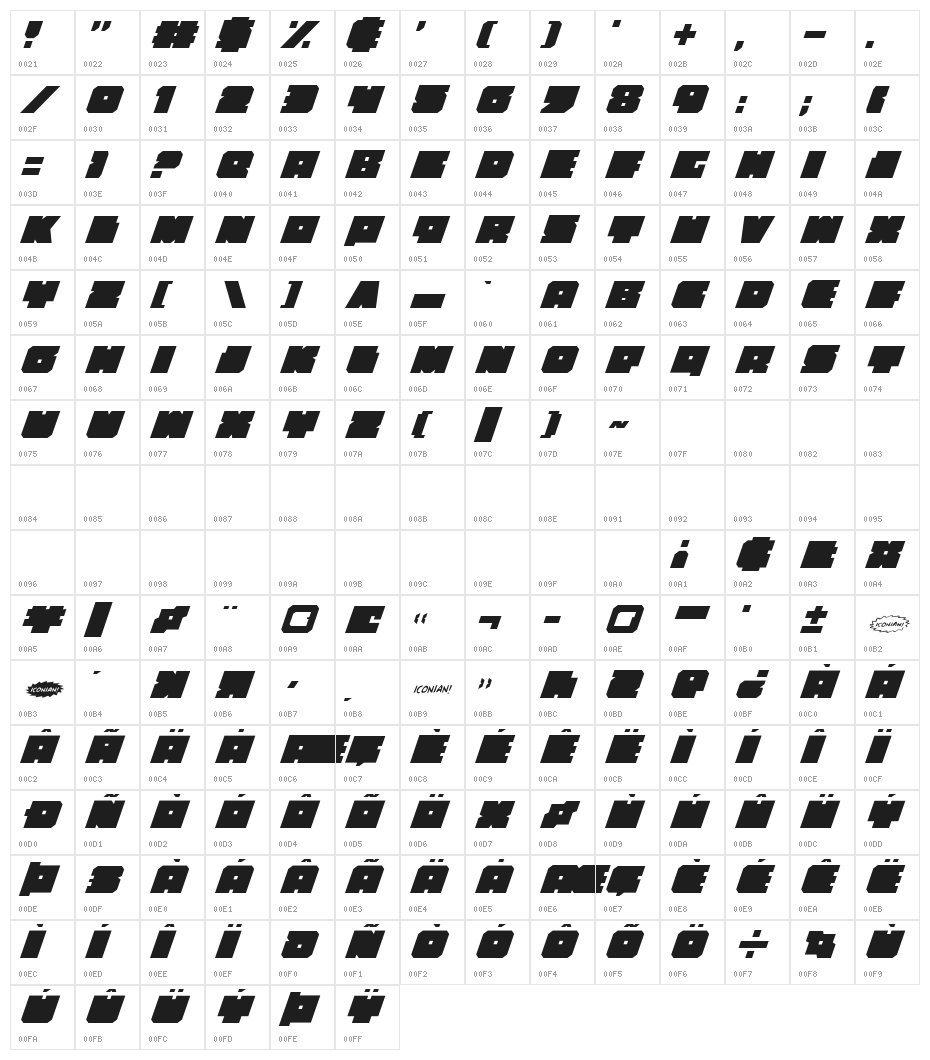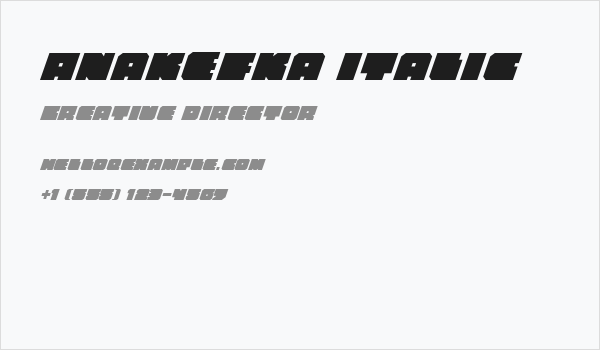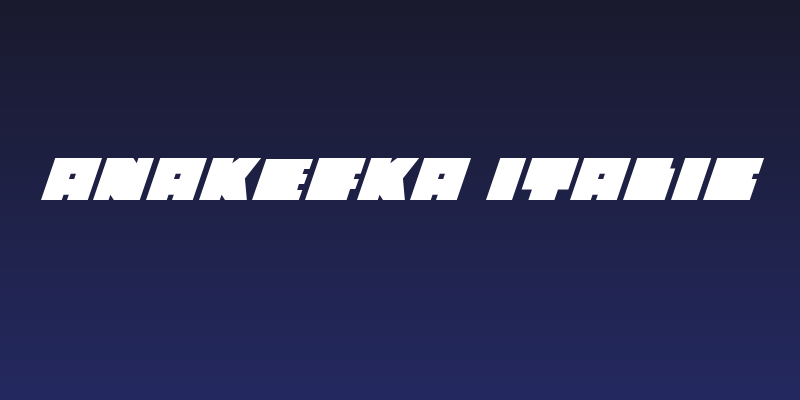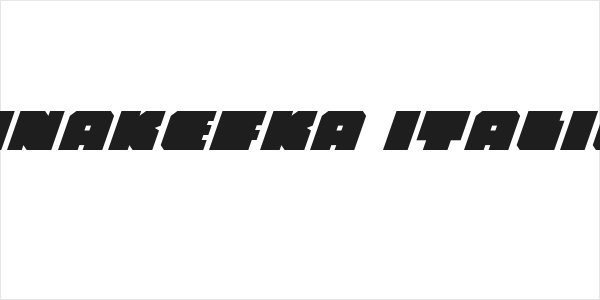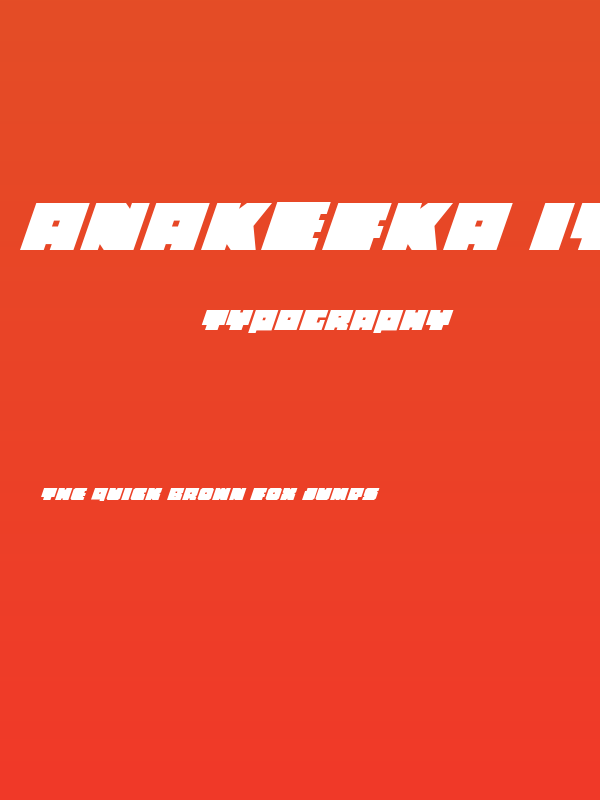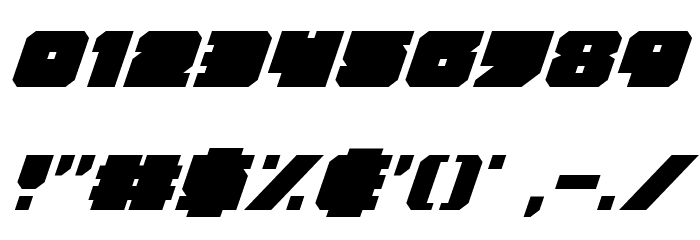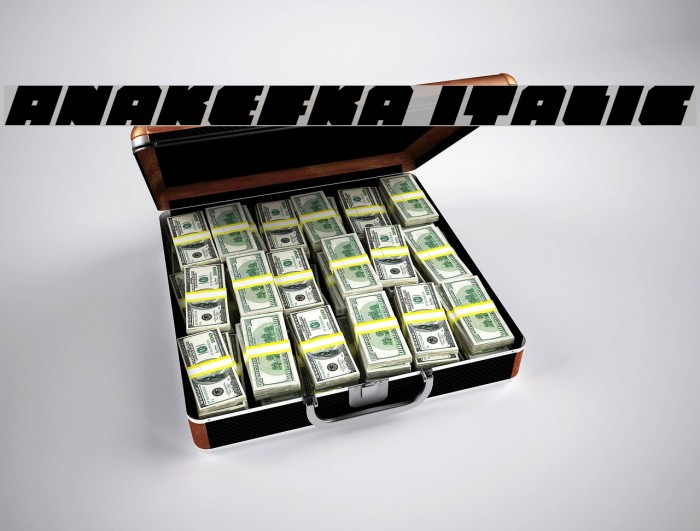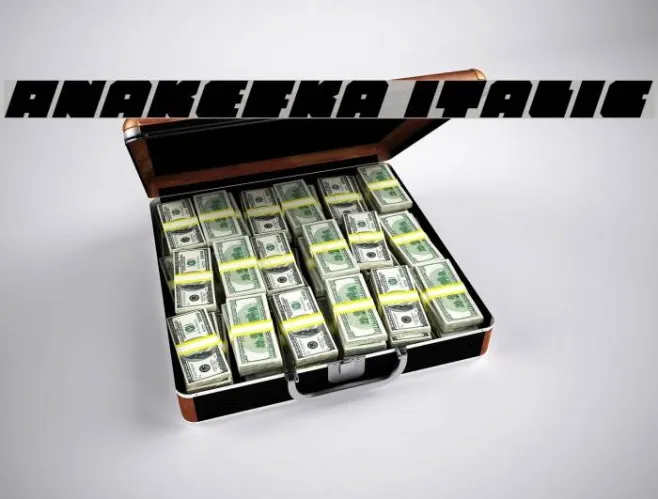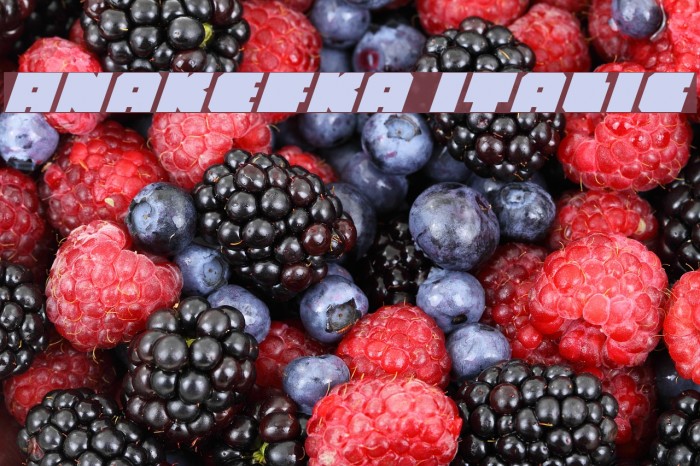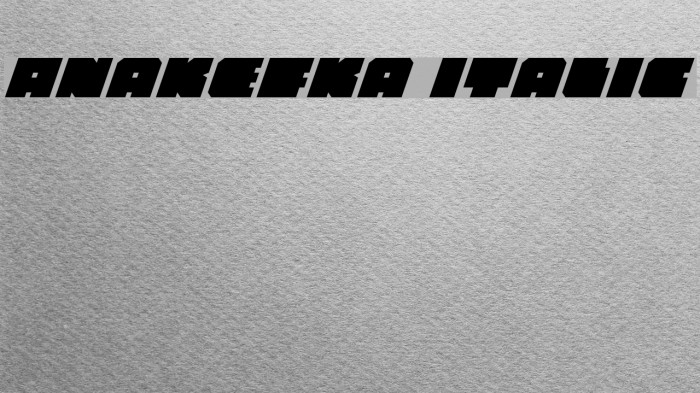
Anakefka Italic Font
Anakefka Italic Description
This font features a bold and dynamic style with a strong geometric influence. The characters are heavily slanted, giving a sense of motion and energy. Each letter is constructed with thick, block-like strokes that create a powerful visual impact. The angular design and sharp edges contribute to its modern and futuristic appearance. The font maintains consistent thickness throughout, with minimal contrast between strokes. It is well-suited for projects that require a bold statement, such as posters, headlines, and branding materials. The spacing between characters is tight, enhancing its compact and cohesive look.
| Proposed Projects | Ideal for posters, headlines, branding, and any project needing a strong visual impact. |